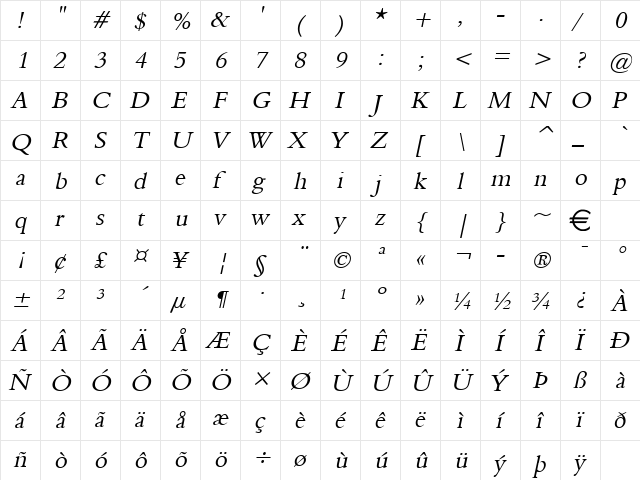
Naline Italic Font Preview
Naline Italic
Design Context for Naline Typeface
Naline offers clean, dependable letterforms without strong stylistic allegiance, making it a practical choice for designers who need flexibility. Its italic angle brings a sense of urgency and motion to the letterforms.
Pro Tip: Try Naline for annotation and caption copy alongside an upright companion — the contrast in angle creates a dynamic but ordered typographic system.